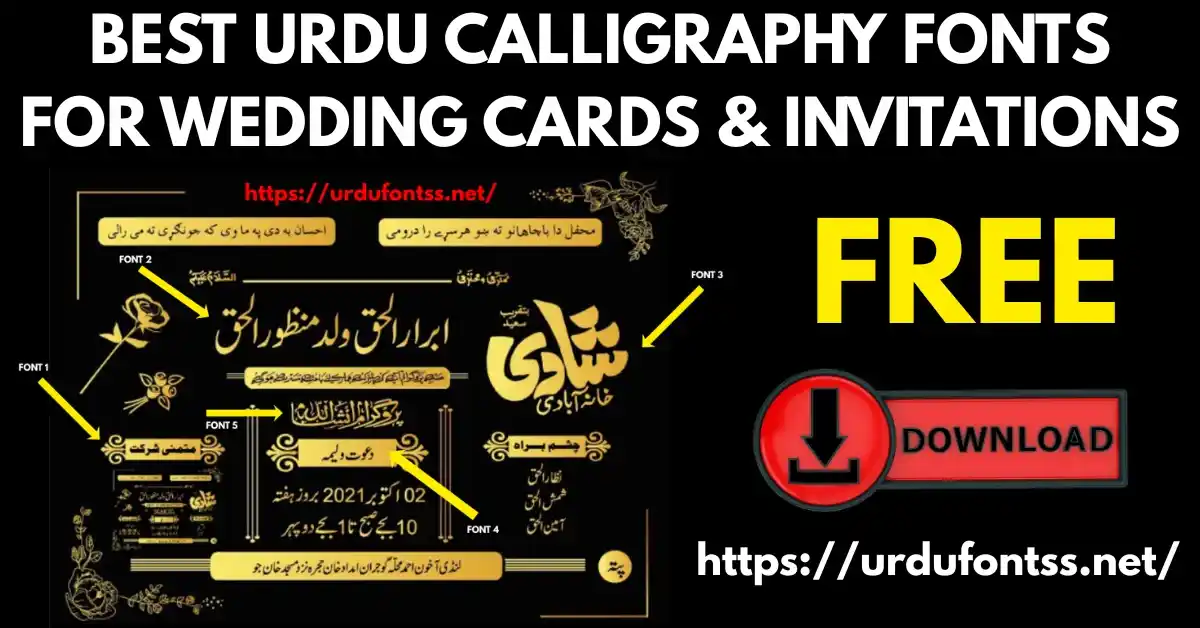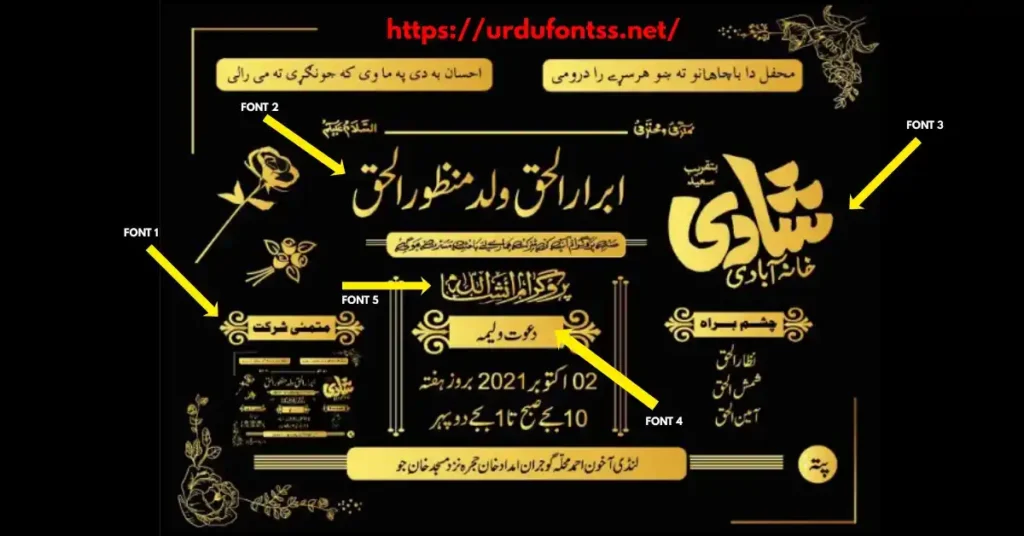
Best Urdu Calligraphy Fonts for Wedding Cards & Invitations
A wedding card is read once and kept for years — so the best Urdu calligraphy fonts for wedding cards are the elegant, traditional faces that make names look ceremonial: Jameel Noori Nastaleeq for the couple’s names, Zohra Unicode for decorative headings, SF Koonj Regular for poetry and couplets, and UL Sajid Heading for section titles. This guide covers the picks by ceremony — nikah, walima, mehndi — the three-role card system, and the printing details that keep gold-foil Urdu text crisp.
What Makes a Font Good for Wedding Cards
• Elegance: the card announces a celebration — calligraphic Nastaliq and decorative hands give it the premium, ceremonial feel.
• Name legibility: the couple’s names are the most-read line on the card — they must be beautiful AND readable at a glance.
• Traditional register: wedding Urdu leans classical — the expected voices are Nastaliq and formal Naskh, not playful display faces.
• Print behaviour: gold foil, embossing and letterpress punish thin strokes — the font needs sturdy letterforms that survive the press.
A wedding card typically uses 2–3 fonts: one for the names, one for headings, one for the event details. More than that looks cluttered.
Urdu wedding card mockup with different fonts labelled by role — names, headings and details
One card, three roles: names in calligraphic Nastaliq, headings in a decorative face, details in a clean Naskh.
Top Urdu Calligraphy Fonts for Wedding Cards
1. Jameel Noori Nastaleeq — best for the couple’s names
The ceremonial standard. Jameel Noori Nastaleeq gives the bride and groom’s names the traditional calligraphic weight a wedding card demands.
2. Zohra Unicode — best for decorative headings
For “Shadi Mubarak” banners and section headings, Zohra Unicode brings a softer, ornamental hand that suits festive pages.
3. SF Koonj Regular — best for poetry and couplets
Wedding cards often open with a sher or dua. SF Koonj Regular sets couplets warmly — personal where the names are formal.
4. UL Sajid Heading — best for section titles
Event names and section titles need clear hierarchy — UL Sajid Heading marks “Nikah”, “Walima” and “Mehndi” blocks at a glance.
5. Urdu Naskh Unicode — best for event details
Dates, venues and addresses must be read without effort — Urdu Naskh Unicode keeps the small print clean and even.
Picks by Ceremony: Nikah, Walima, Mehndi
• Nikah cards: most formal — Jameel Noori Nastaleeq for names, Urdu Naskh Unicode for details, minimal decoration. Dignity over ornament.
• Walima invitations: celebratory but formal — Zohra Unicode headings over Jameel names, with a couplet in SF Koonj.
• Mehndi / dholki cards: the playful one — a decorative display face for the event name is acceptable here, with clean Naskh for the details.
• Digital / WhatsApp invites: the same three-role system applies — export as a high-resolution image so the fonts travel with the design.
How to Choose the Right Font for Your Card
• Match the ceremony’s formality: nikah = most traditional, mehndi = most playful.
• Test the names first: set the actual couple’s names in each candidate — some names look better in one hand than another.
• Check foil behaviour: if the card uses gold foil, avoid very thin strokes — they break up in foiling.
• Keep the printer in the loop: send the printer outlined text or an embedded-font PDF — never live text.
Design Tips for Wedding Cards
• Hierarchy of three: names largest, headings next, details smallest — the eye should find the couple first.
• Generous white space: elegance needs air — crowded cards look cheap no matter the font.
• Colour restraint: gold on deep maroon, green or navy is the classic; the font does the talking, not the palette.
• Proof the names twice: a misspelt name on a printed card cannot be fixed — have two people check the Urdu spelling.
Common Problems & Solutions
ProblemSolution
Names look plain, not ceremonialMove the names to a calligraphic Nastaliq (Jameel Noori) and enlarge them
Thin strokes vanish in gold foilSwitch to a sturdier face or weight for foiled elements; test a foil proof first
Jameel Noori Nastaleeq — its calligraphic Nastaliq gives names the ceremonial weight a wedding card needs.
What font size works on a wedding card?
Names largest (24pt+), headings next, details at a comfortable 10–12pt — and always proof a printed sample before the full run.
Why does my gold-foil Urdu text break up?
Thin strokes fail in foiling — use a sturdier face or weight for foiled elements and request a foil proof from the printer first.